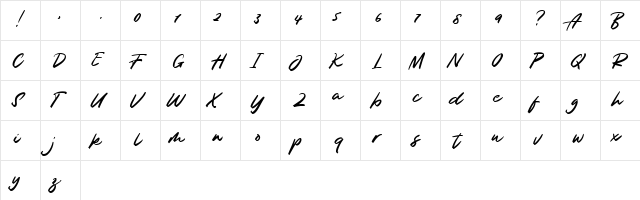
Rajawalite Regular
| Designer | Muhammad Naufal Anis |
Design Context for Rajawalite Typeface
Rajawalite is a composed and adaptable typeface that performs quietly and consistently across a wide range of design contexts.